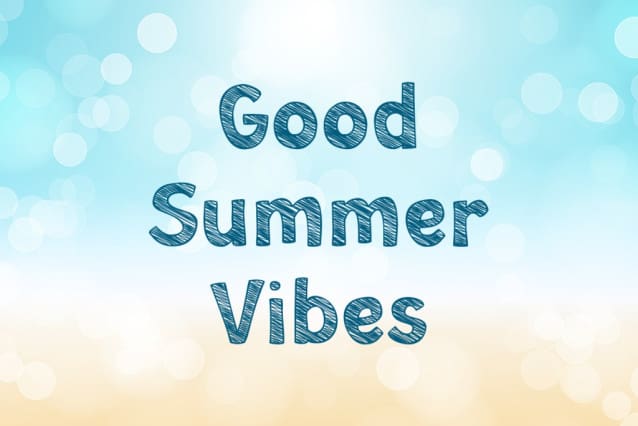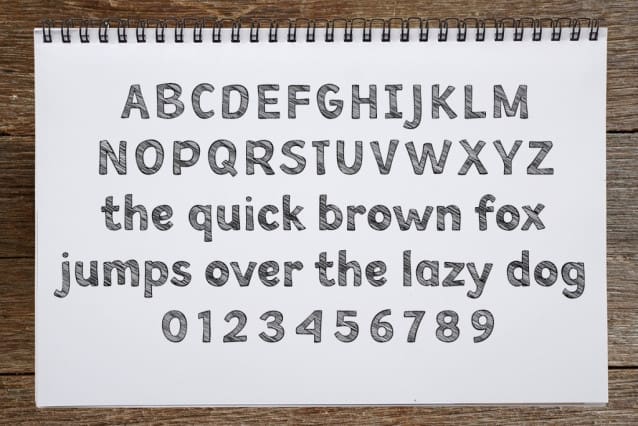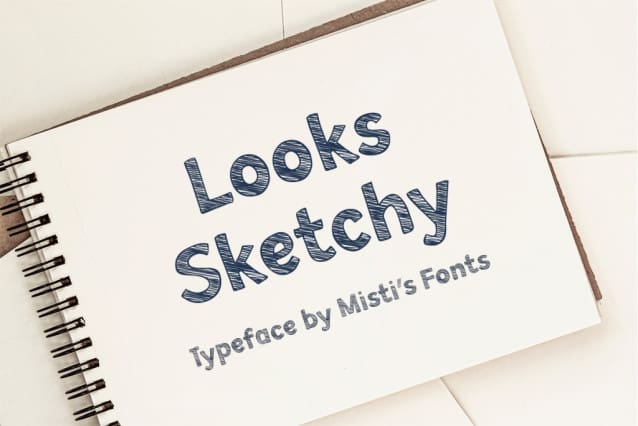
Looks Sketchy Font
Looks Sketchy Font, the font that brings a dash of whimsy and a sprinkle of delight to every design! This sketch-style sans serif typeface is expertly crafted to add a playful, hand-drawn touch to your project. With its quirky character and light-hearted appeal, “Looks Sketchy” is perfect for designers looking to infuse a bit of fun and creativity into their work.